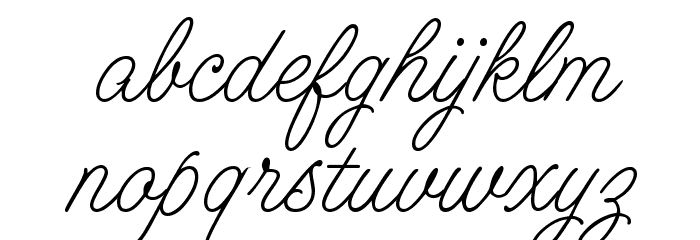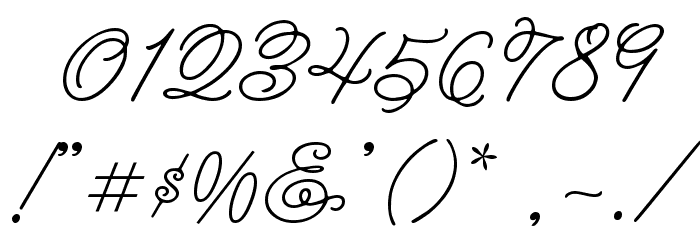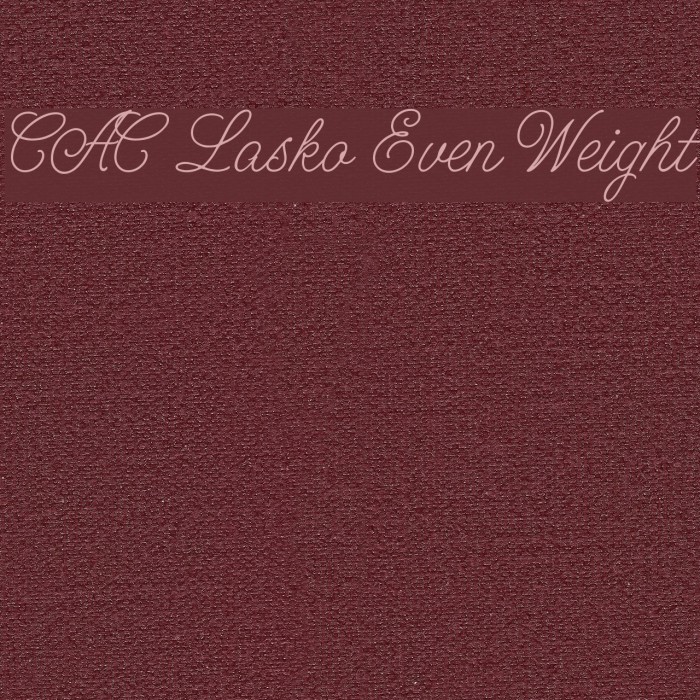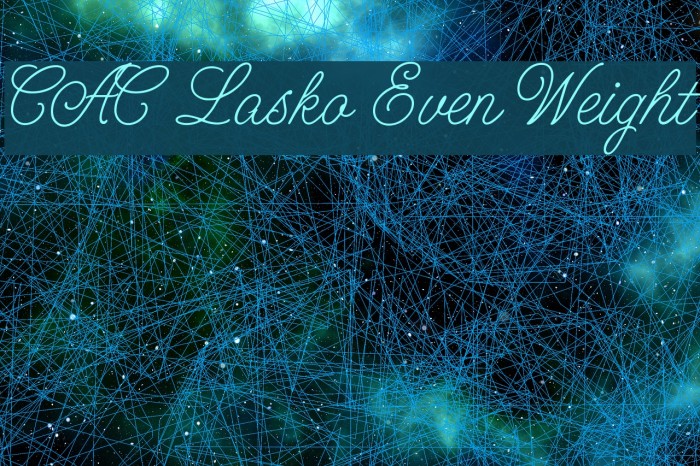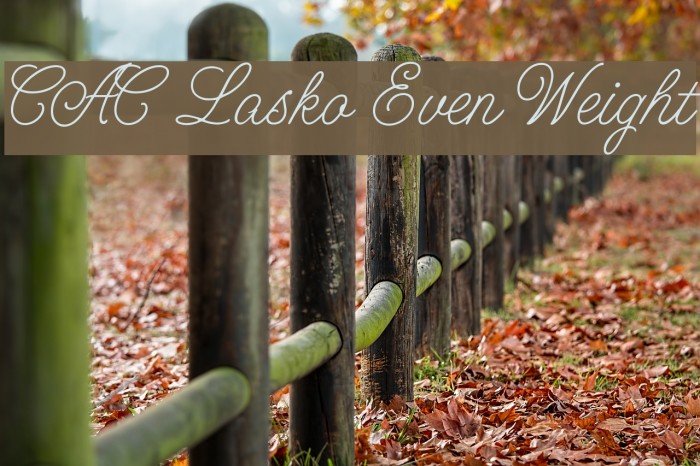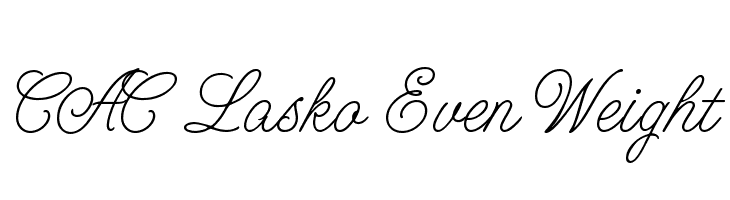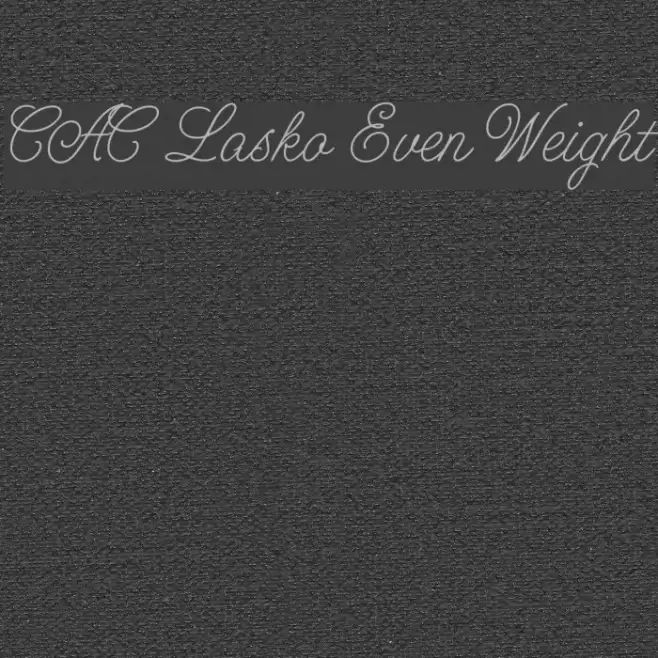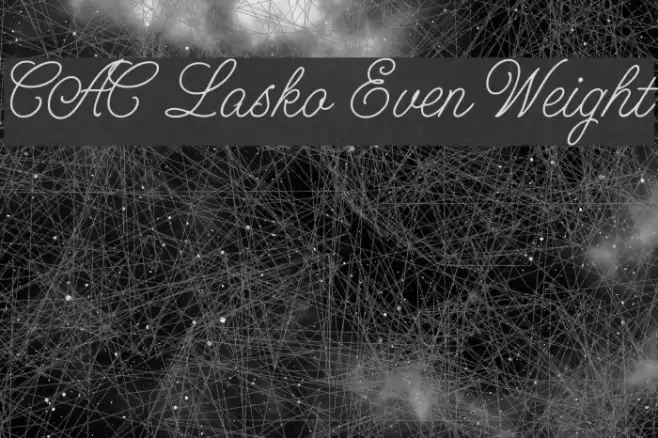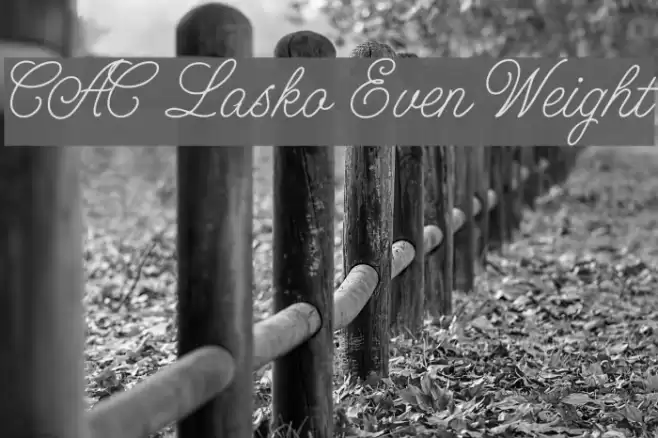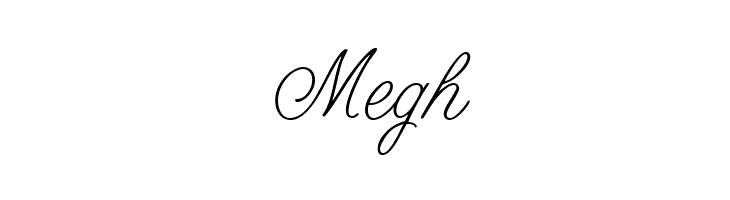
CAC Lasko Even Weight Font
This font features an elegant, flowing script style that emulates the fluidity of cursive handwriting. The characters are interconnected, creating a seamless and sophisticated appearance. The uppercase letters are slightly more ornate, with graceful loops and swirls, while the lowercase letters maintain a consistent, smooth flow. The numerals and special characters are designed to match the overall aesthetic, ensuring a cohesive look across all text. This font is well-suited for projects that require a touch of elegance and sophistication, such as wedding invitations, formal event programs, or high-end branding materials.
An elegant, flowing script font with interconnected characters and a sophisticated style.
- Proposed Projects: Ideal for wedding invitations, formal event programs, high-end branding, and elegant stationery.
- Overall Style: Elegant